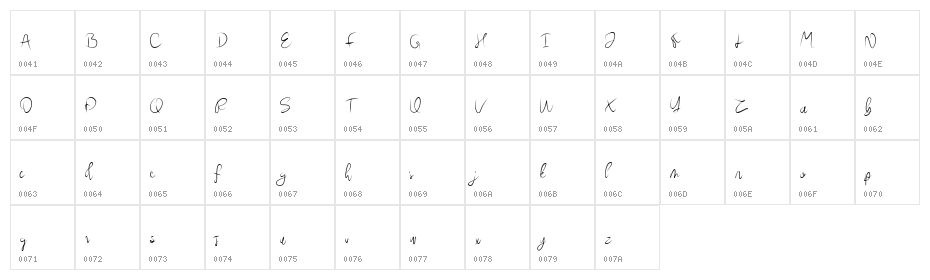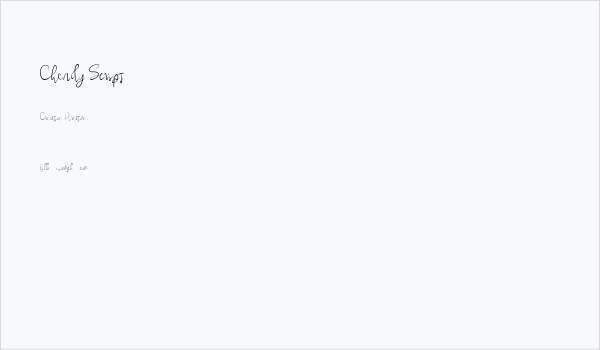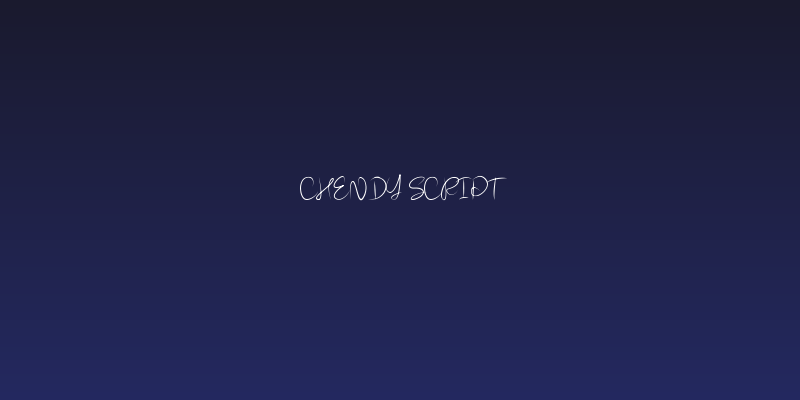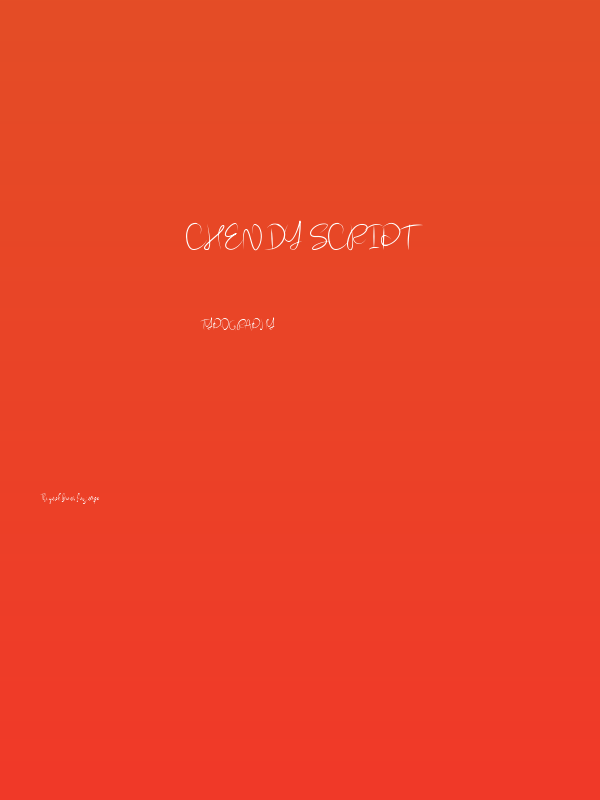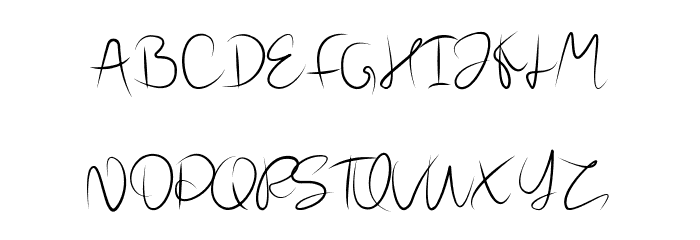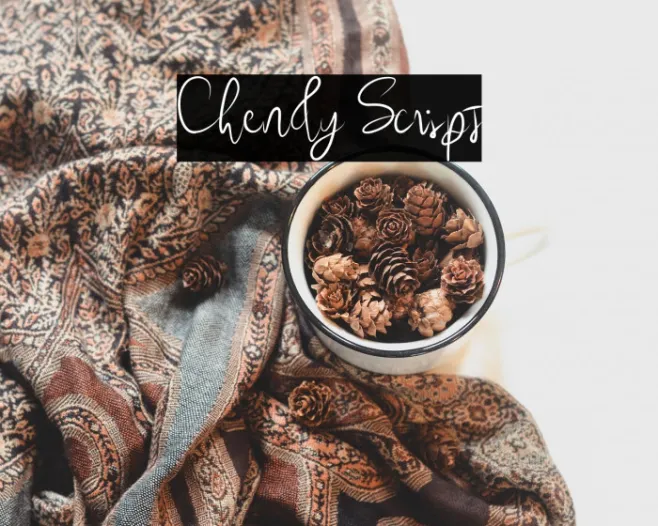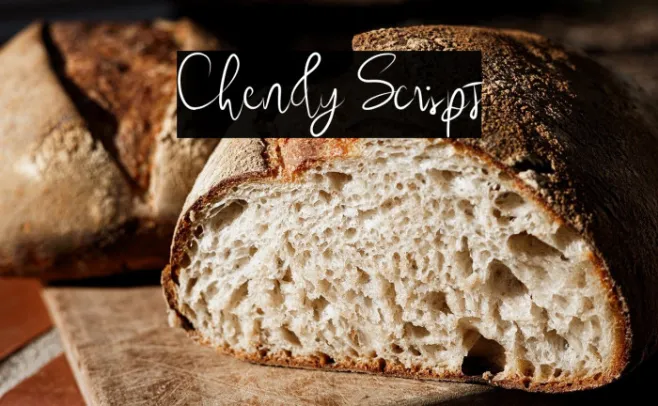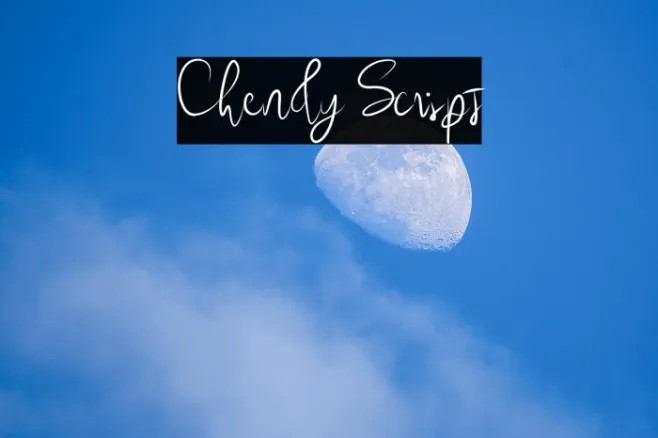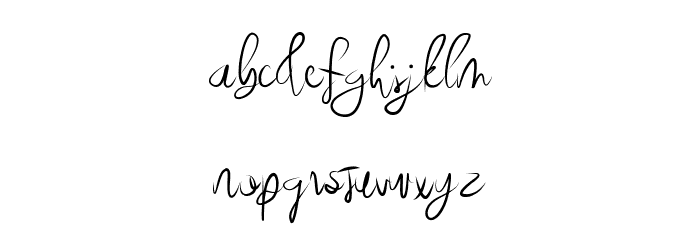
Chendy Script Font
Chendy Script Description
This font exudes a whimsical and artistic flair, characterized by its flowing, cursive style that mimics elegant handwriting. The letters are interconnected with smooth, sweeping strokes, giving it a fluid and dynamic appearance. The uppercase letters are bold and expressive, with unique flourishes that add a touch of sophistication. The lowercase letters maintain a consistent style, with delicate loops and curves that enhance its graceful aesthetic. This font is perfect for projects that require a personal touch, such as invitations, greeting cards, or branding materials that aim to convey creativity and elegance.
| Proposed Projects | Ideal for wedding invitations, greeting cards, artistic branding, and elegant stationery. |